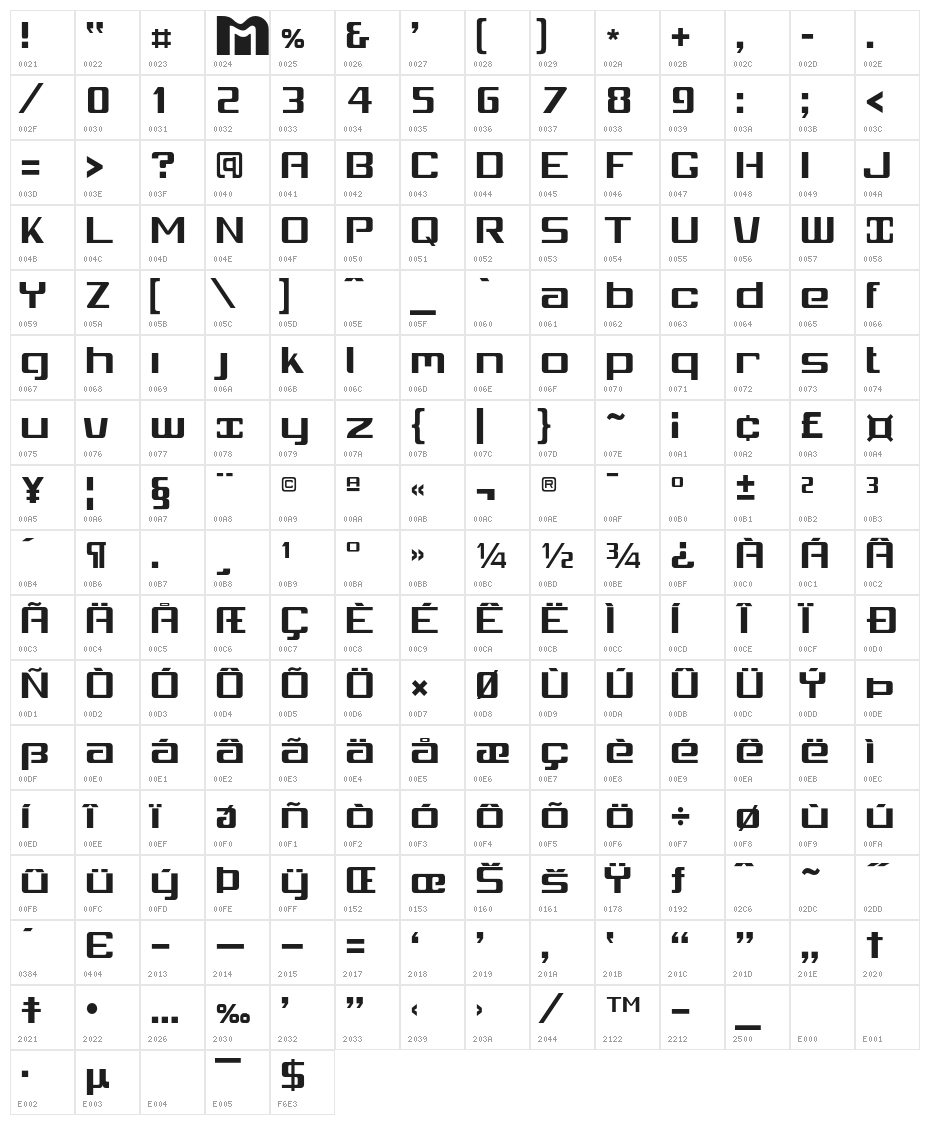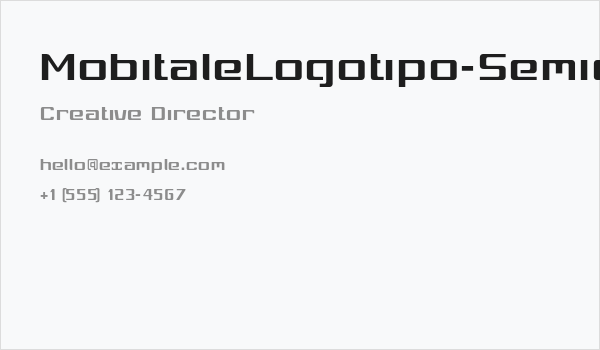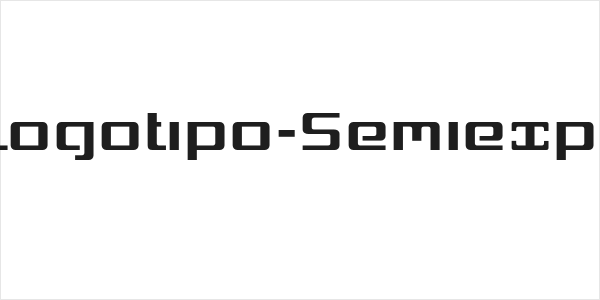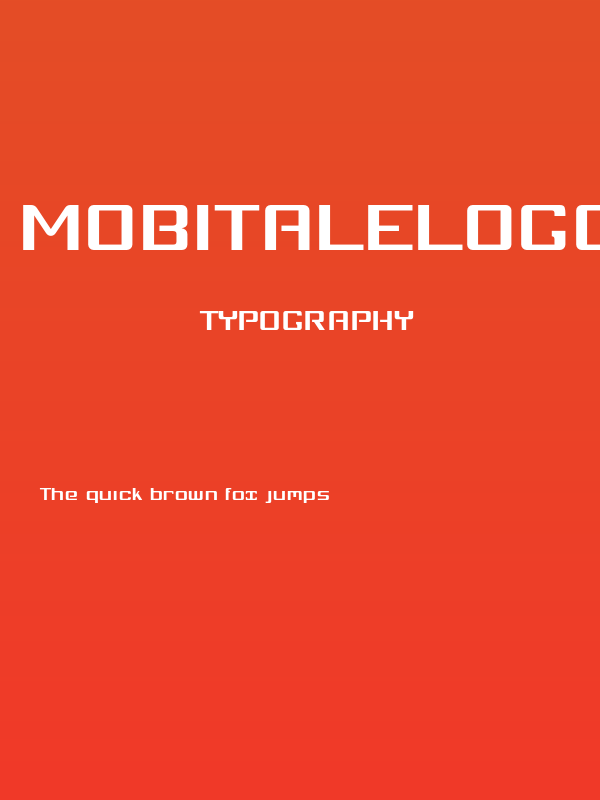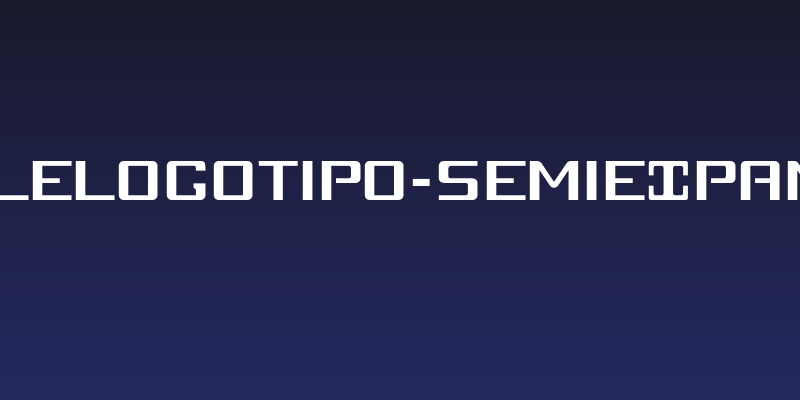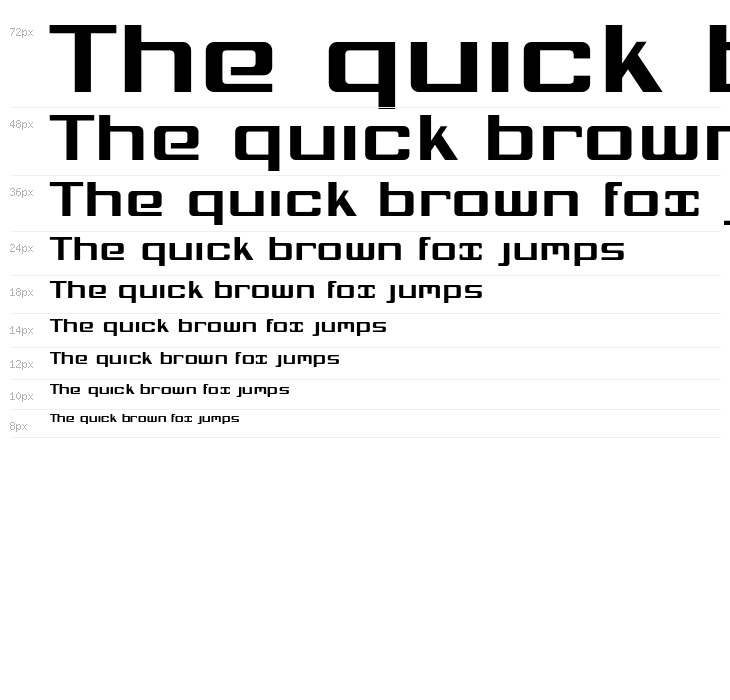
MobitaleLogotipo-SemiexpandedMe Font
MobitaleLogotipo-SemiexpandedMe Description
This font features a bold and geometric design with a semi-expanded width, giving it a strong and modern appearance. The uppercase letters are uniform in height, with sharp angles and clean lines, while the lowercase letters maintain a similar geometric style, offering a cohesive look. The numerals are distinct and easy to read, matching the overall boldness of the alphabet. Special characters are uniquely styled, adding a touch of creativity to the font. The overall design is suitable for projects that require a contemporary and impactful typeface.
| Proposed Projects | Ideal for branding, logos, headlines, and any design project that requires a modern and bold typeface. |